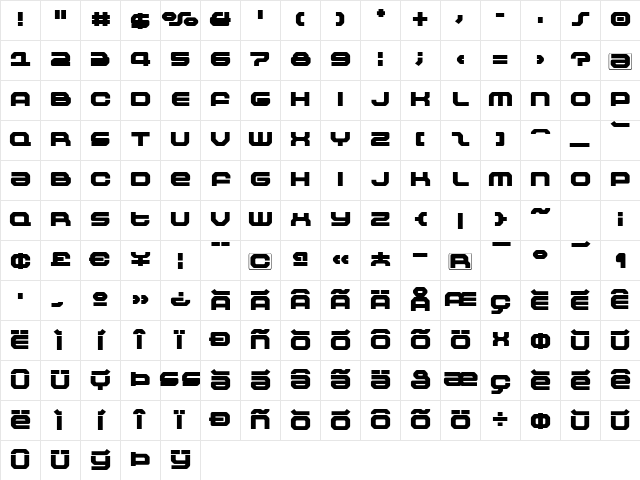
Outlander Nova Black Regular Free Font
Outlander Nova Black Regular
Design Context for Outlander Nova Black
Outlander Nova Black is a composed and adaptable typeface that performs quietly and consistently across a wide range of design contexts.
Pro Tip: Use Outlander Nova Black in both headline and body roles to test its range before committing to a single application.